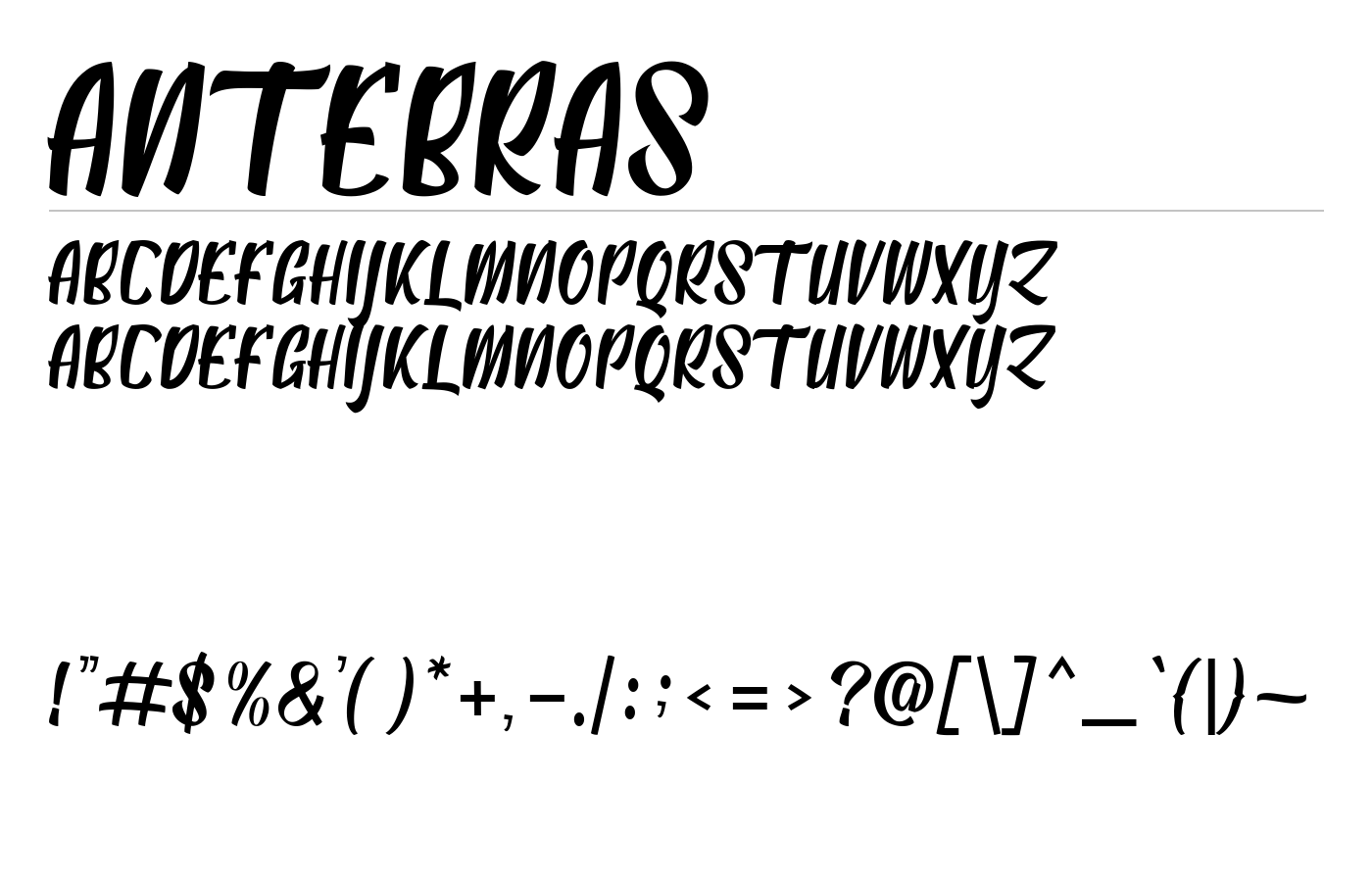
Antebras is a bold, narrow sans-serif typeface with a distinct hand-painted feel, characterized by its energetic brushstroke style and slightly irregular letterforms. The font’s slanted, condensed uppercase letters create a dynamic, modern look that works well for bold headlines, logos, and branding that seeks a spirited, creative vibe. Its lively personality and strong presence make it ideal for projects needing an informal yet impactful expression.
Antebras Font
About Antebras Font